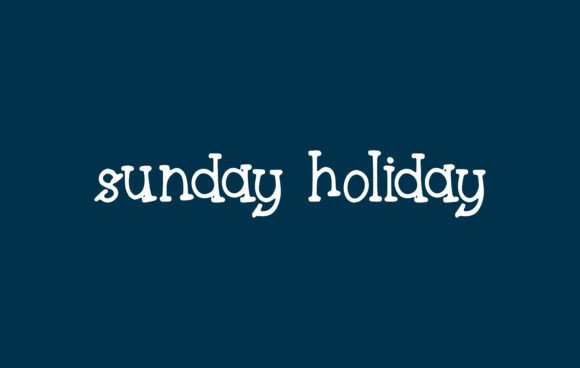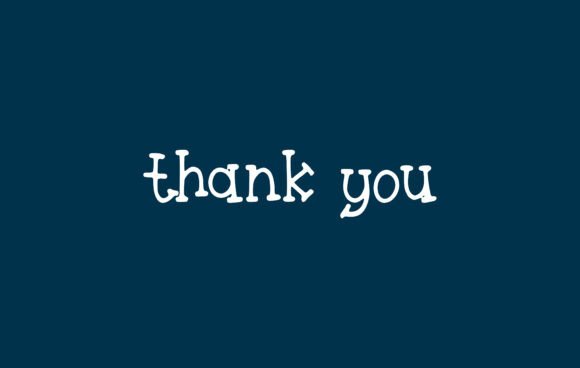
Introduction to Mystic Melody Font
Mystic Melody font is an authentic handwritten font with a romantic touch.
Key Features of Mystic Melody Font
Why Choose Mystic Melody Font?
Mystic Melody Font offers exceptional quality and versatility, making it a valuable addition to your design toolkit. Whether you’re creating for personal projects or commercial use, Mystic Melody Font delivers professional results.